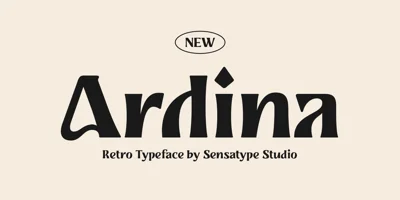
Ardina Font
Ardina Font – Elegant Modern Serif with Editorial Flair
Discover Ardina Font, a contemporary serif masterpiece that blends classic sophistication with fresh typographic energy. Perfect for luxury branding, high-end publishing, and designs demanding refined yet dynamic typography.
Why Ardina Captivates
Hybrid Serif Design – Traditional structure with modern proportions
7 Weight System – From delicate Thin to commanding Black
Optical Masters – Dedicated text and display versions
Multilingual Support – Covers 100+ languages
1,500+ Glyphs – Including stylistic alternates
OpenType Features – Contextual alternates, stylistic sets
True Small Caps – Professionally proportioned
Perfect Kerning – 2,000+ precision adjustments
Ardina Font
Where Ardina Excels
1. High-End Publishing
Literary journal typography
Art book interiors
Premium magazine spreads
2. Sophisticated Branding
Watchmaker identities
Couture fashion labels
Fine jewelry packaging
3. Digital Editorial
Culture website headers
Online magazine typography
E-publication design
4. Corporate Authority
Annual reports
Executive presentations
Professional whitepapers